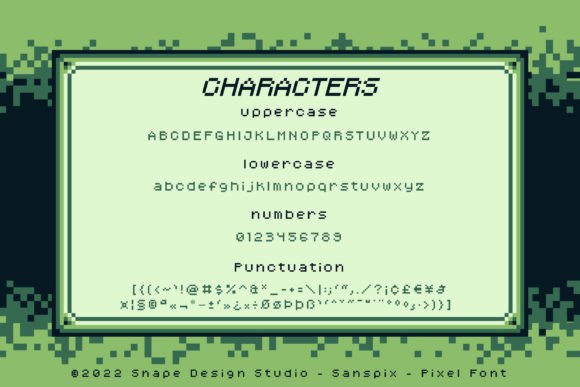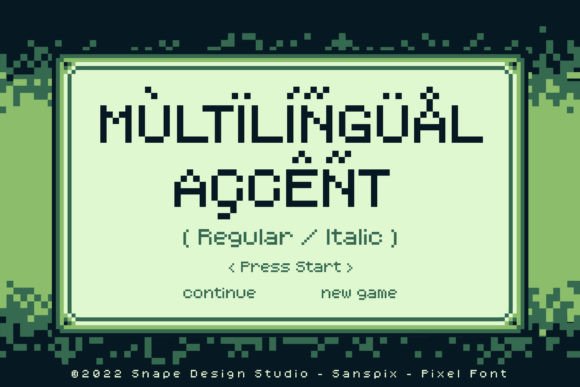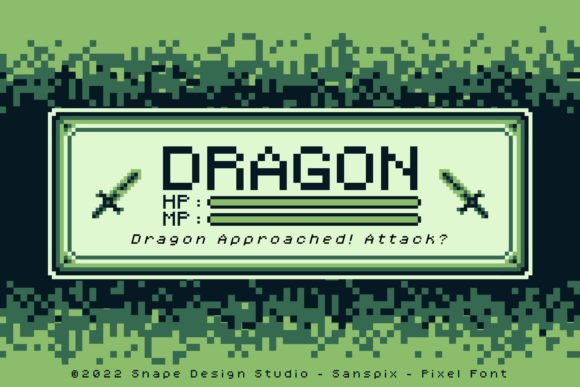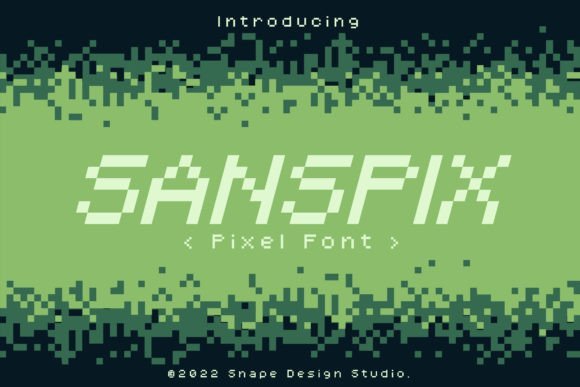
Introduction to Sanspix Font
Sanspix is a retro pixel font style, perfect for retro game design themes.
This display font is also great or movies, films, logos, posters, games, book covers, headlines, titles, and many more projects Add this font to your creative ideas and notice how it will make them stand out.
Key Features of Sanspix Font
Why Choose Sanspix Font?